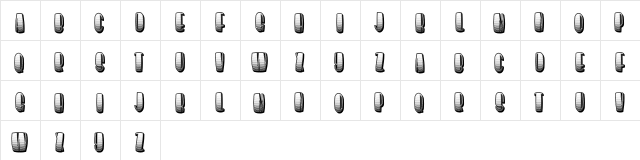
Organiser Regular
Design Context for Organiser Typeface
Organiser is a composed and adaptable typeface that performs quietly and consistently across a wide range of design contexts.
Pro Tip: Use Organiser in both headline and body roles to test its range before committing to a single application.